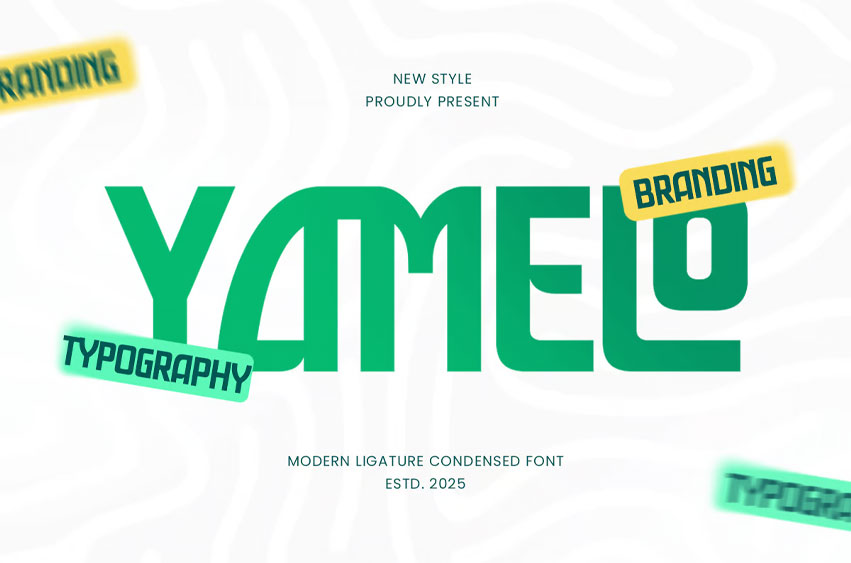
Yamelo Font is a modern condensed font designed for corporate branding, business presentations, and tech-focused designs. Its sharp structure and professional tone make it a perfect fit for logos, UI headers, company profiles, digital startups, and marketing assets.
Built with stylish ligatures and compact spacing, Yamelo strikes a balance between clarity and sophistication. It’s versatile enough for app interfaces, pitch decks, editorial layouts, and professional print materials.
If you’re aiming for a sharp, innovative, and credible look, Yamelo is your go-to font for modern business identity.
Yamelo – Modern Ligature Condensed Font Features
- Compact and professional condensed style
- Great for tech companies, business brands, and corporate visuals
- Stylish ligatures for added character and distinction
- Ready with Alternate & Ligature Characters
- Punctuation, numbers, and symbols included
- Uppercase and lowercase letters
- OpenType features for enhanced functionality
Shape a bold business identity with Yamelo — where professionalism meets modern design.